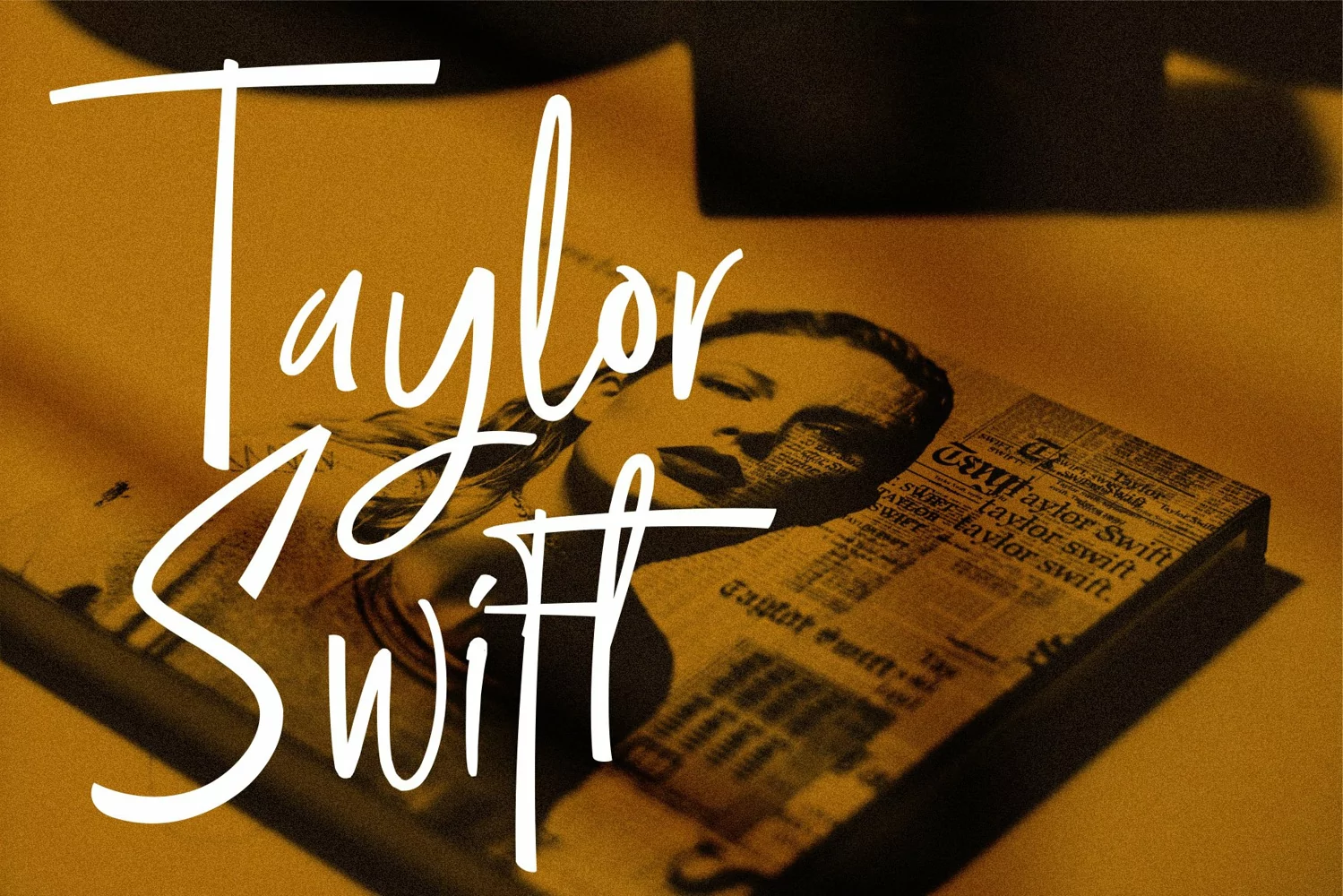
Brithney Script is a fashionable and super-chilled new font with handwritten font script with some sexy stylish.
Brithney Script offers beautiful typographic harmony for a diversity of design projects, wedding invitation card designs, logotypes, business card designs, advertisements, product designs, stationery, product packaging, quotes and so on.